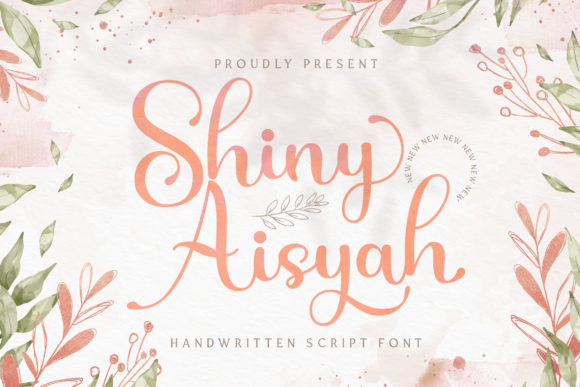
Prepare to be swept away by the allure of Shiny Aisyah, the font that radiates charm and elegance, leaving an enduring impression on your designs. Imagine your wedding invitations adorned with its graceful curves, conveying the joy and love of your special day. Create thank-you cards that exude heartfelt gratitude, leaving a lasting mark on the recipients' hearts. Transform quotes into works of art, allowing their messages to shine with newfound brilliance. Elevate greeting cards to new heights of sophistication, expressing sentiments with a touch of artistry.
For logos and business cards, Shiny Aisyah brings a touch of distinction, setting your brand apart with its unique personality. Let your designs flourish with this font's versatility, adapting seamlessly to a myriad of creative endeavors. Whether it's posters, flyers, or social media graphics, Shiny Aisyah adds a captivating allure that commands attention.
Unleash your creativity and immerse yourself in a world of boundless possibilities. With its PUA encoding, accessing the full spectrum of glyphs and swashes is effortless, opening up a treasure trove of design elements. Explore the varying baseline, allowing you to create dynamic and visually striking compositions. Embrace the smooth lines that flow effortlessly, adding a touch of grace to every letterform. Discover the gorgeous glyphs, each meticulously crafted to enhance the visual appeal of your designs. Adorn your creations with stunning alternates, adding depth and dimension to your typography.